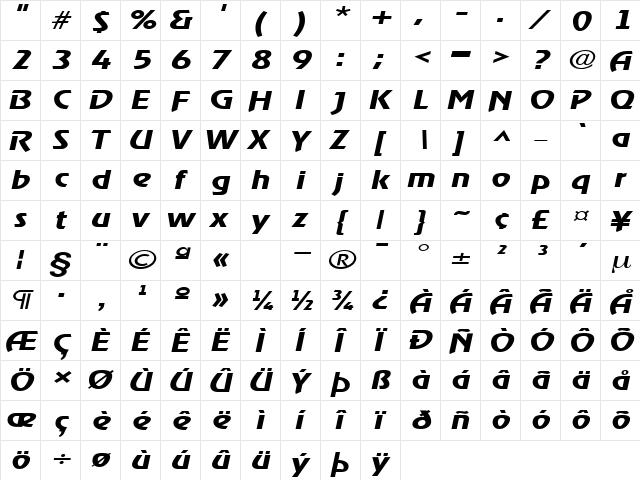
XanadauExtended Oblique
Design Context for XanadauExtended Typeface
XanadauExtended is a composed and adaptable typeface that performs quietly and consistently across a wide range of design contexts. The slanted form adds forward momentum and visual energy.